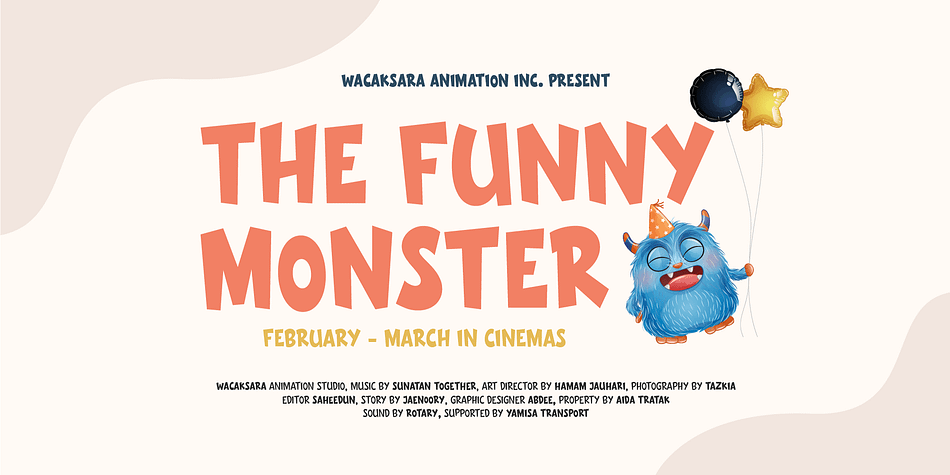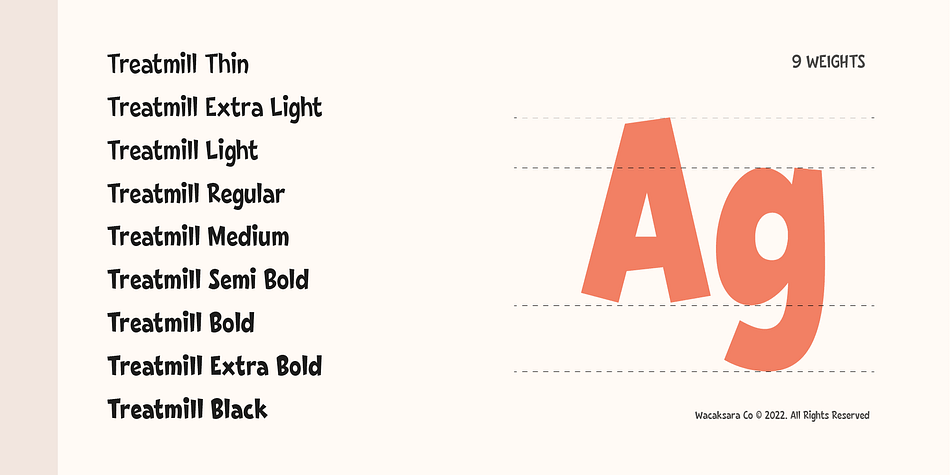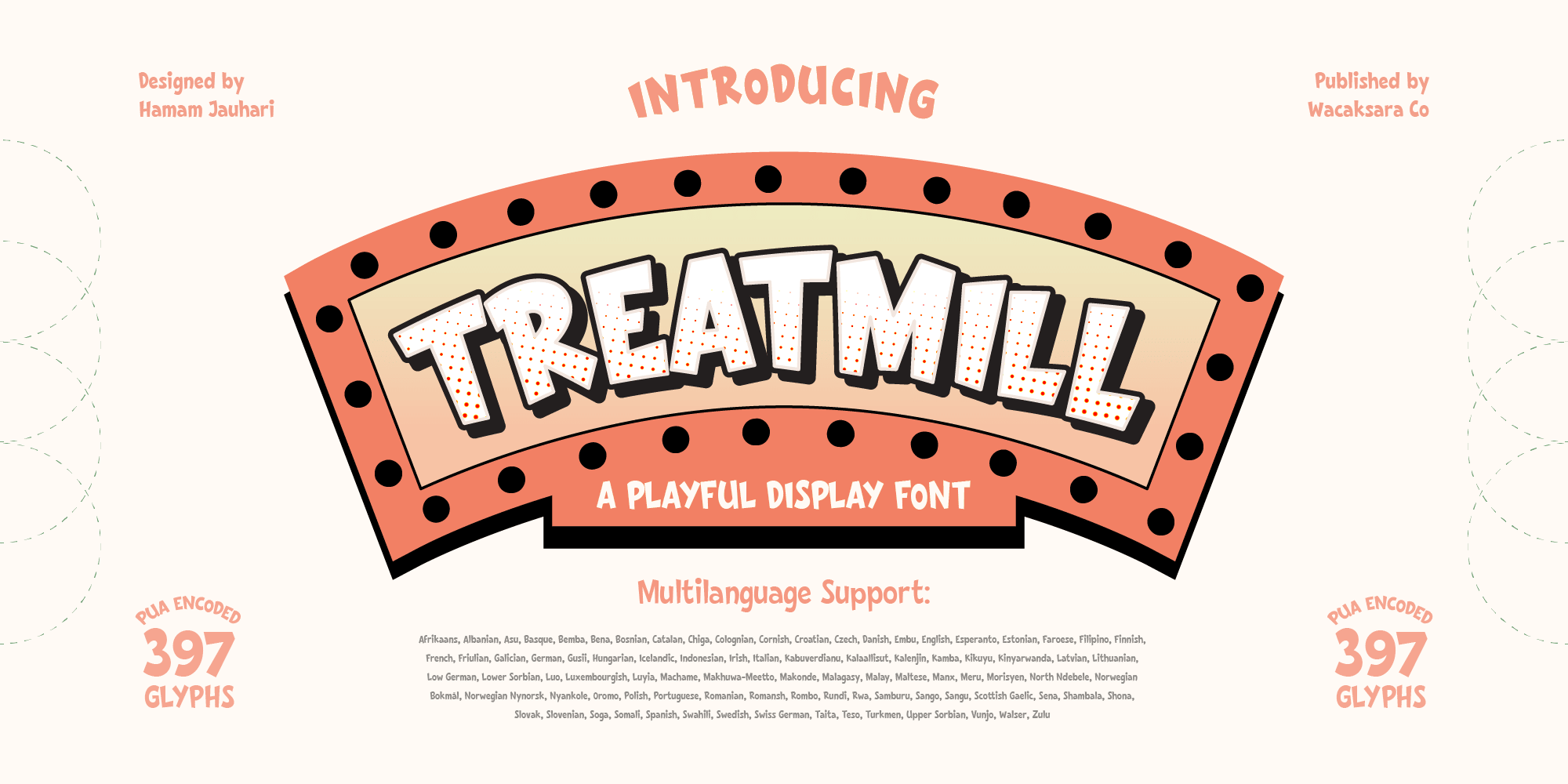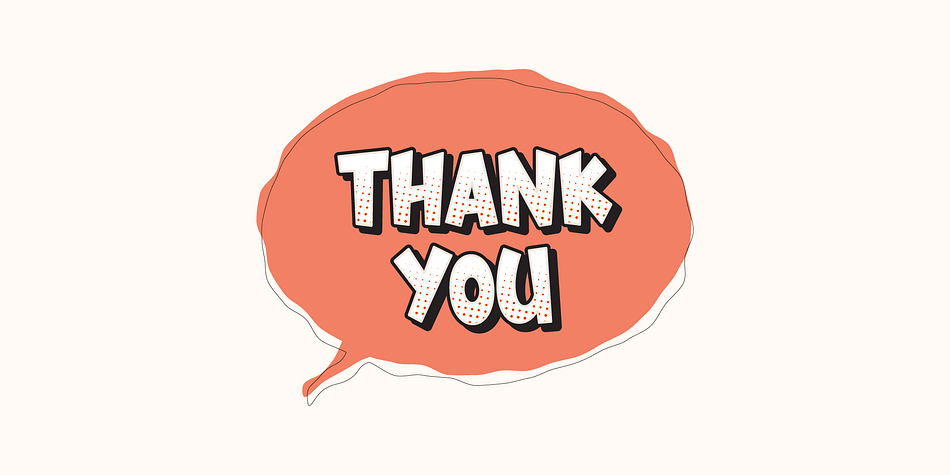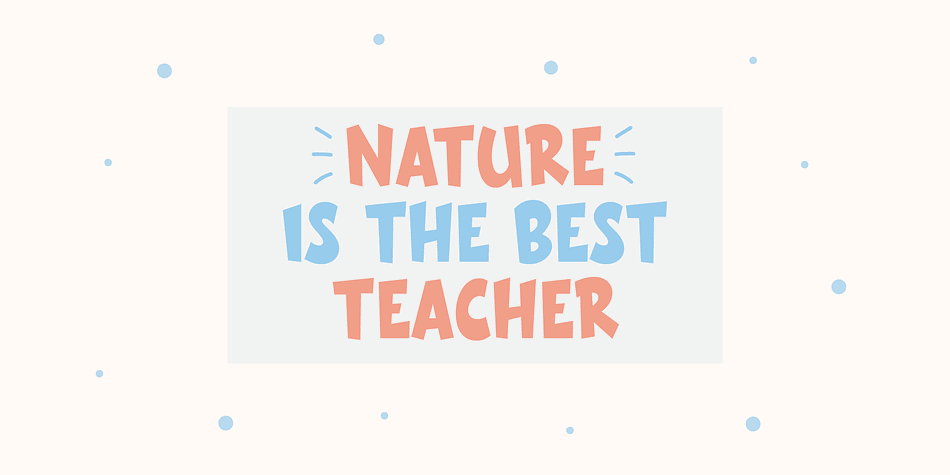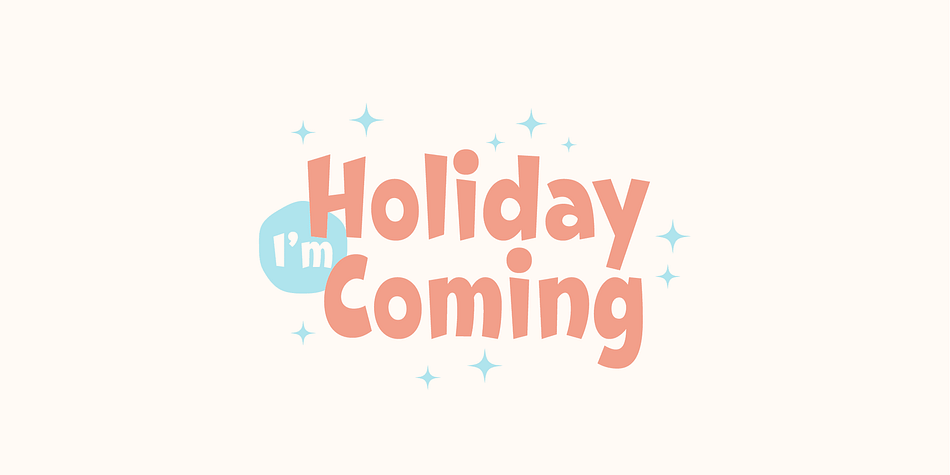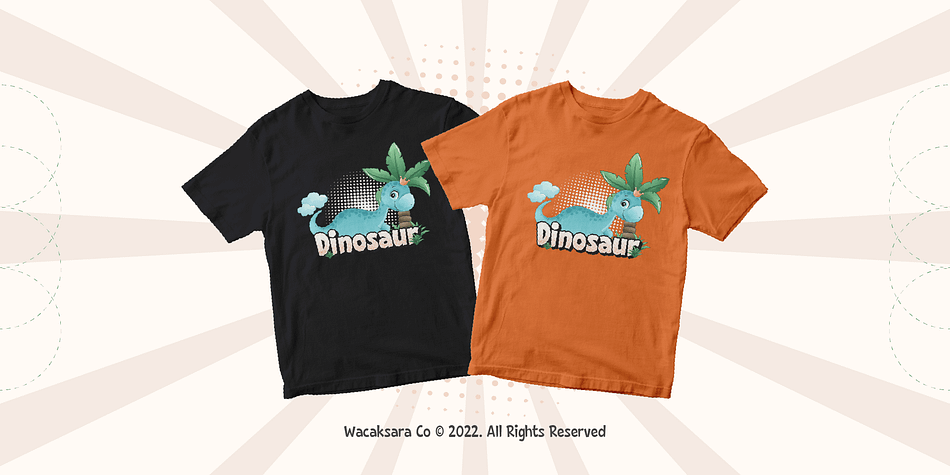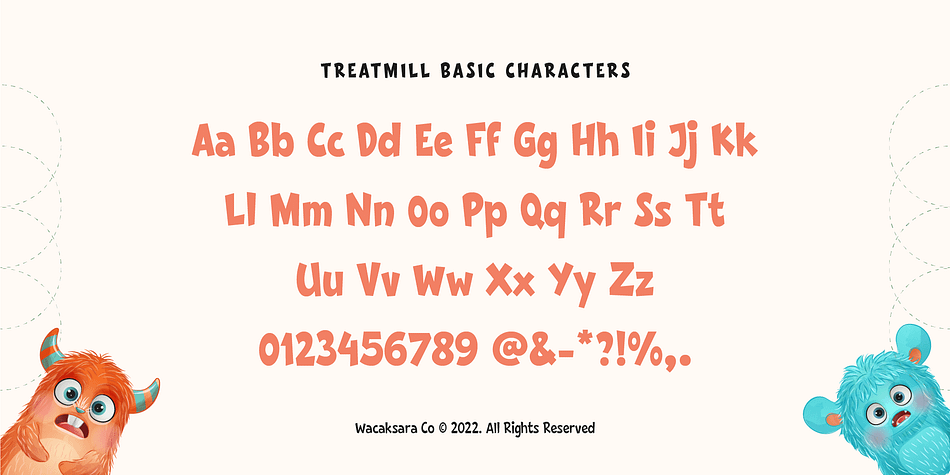
Treatmill
Designed by Hamam Jauhari, Treatmill is a display sans and kids font family. This typeface has nine styles and was published by Wacaksara Co.
Treatmill is a playful hand lettered font. There are 9 font families included from thin to black styles. It is perfect for title, headings, flyer, greeting cards, product packaging, book cover, printed quotes, logotype, apparel design, album covers, children book, comic etc.